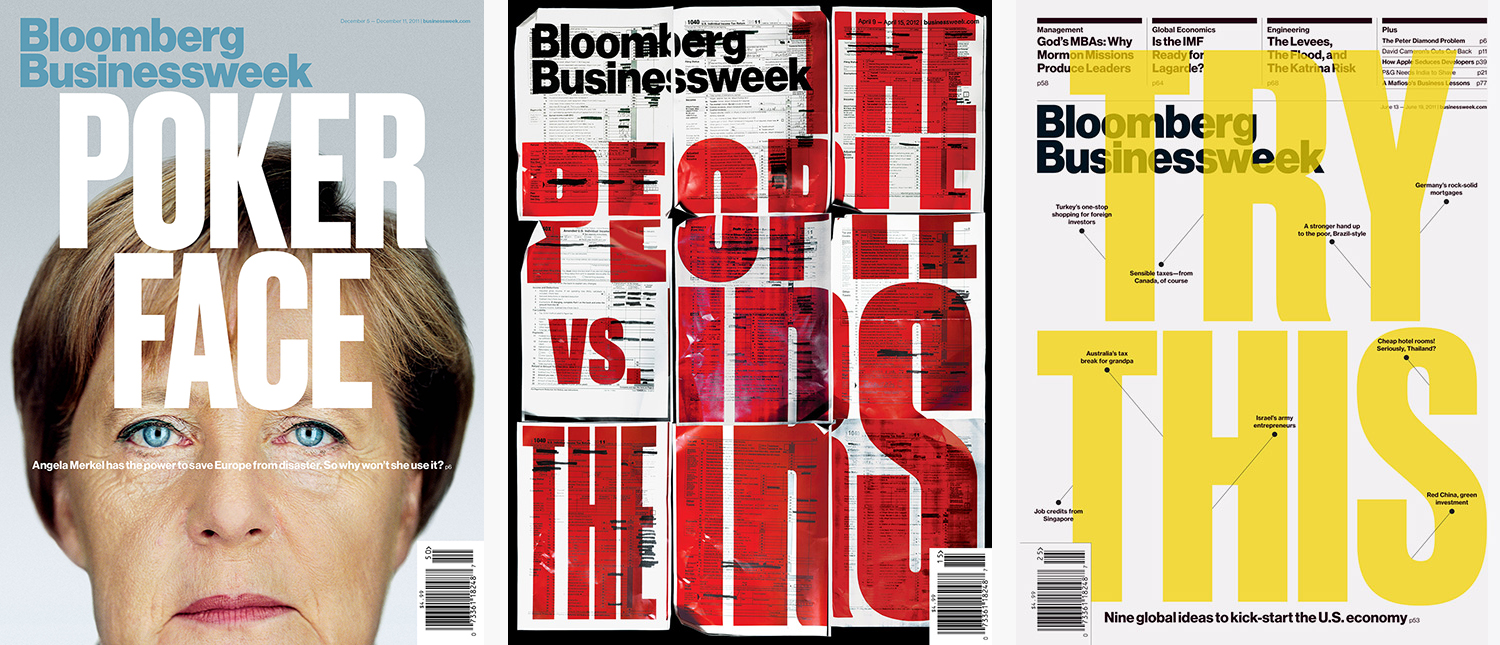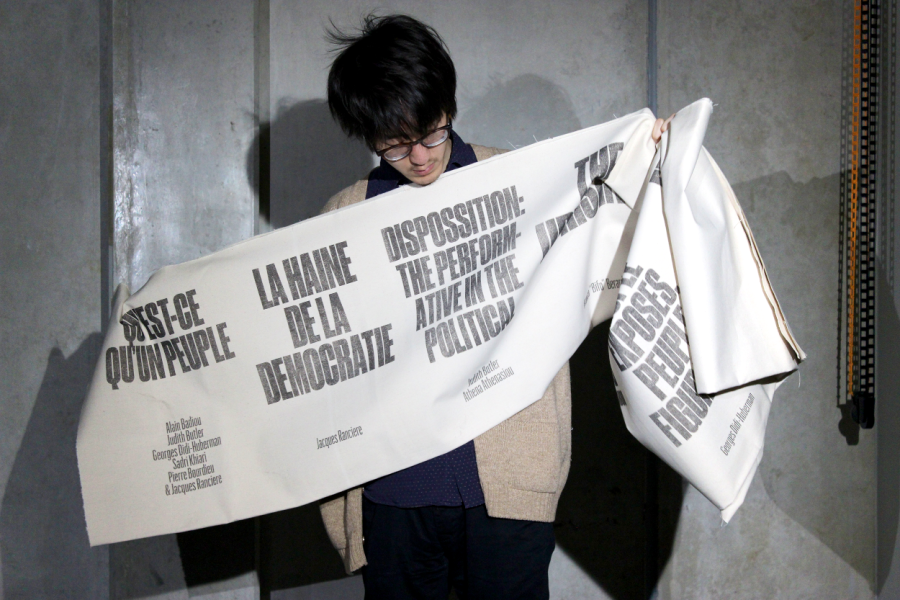
Druk
Designed by Berton Hasebe, Druk is a study in extremes, featuring the narrowest, widest, and heaviest typefaces in the Commercial Type library to date. Starting from Medium and going up to Super, Druk is uncompromisingly bold. Druk was designed without a normal width, nor lighter than medium weights, as Hasebe wanted to avoid shifting the focus of the typeface away from the most emphatic styles to accommodate more general-purpose usage.
Druk has its roots in type from the past: the sans serifs created in the 19th century onwards and popularised in the 20th century for powerful display typography. These were mainly used for posters and editorial design, and were often the loudest voices in the typographic spectrum. However, Druk is designed with a particular kind of graphic design in mind, rather than reverently preserving these old forms. Hasebe created Druk for Richard Turley at Bloomberg Businessweek. After using a staple diet of Neue Haas Grotesk and Publico for two years, they wanted to add a typeface that would look both exciting and distinctive in and of itself, and wouldn’t force the designers to work as hard to make every headline – all of which had been in Neue Haas Grotesk up to this point – visually engaging. The result was Druk, which went on to play a major role in many of their iconic covers.
Druk’s so-called ‘normal’ width would probably be called a condensed in any other typeface. Its flat sides allow it to be spaced tightly and very consistently, while subtle oddities in its proportions keep it from looking monotonous. The Super weight manages to be very loud without becoming a charicature of itself. Instead, it projects solidness. This width of Druk was designed with poster-style typography in mind, where a short headline needs to have a lot of impact: book covers, opening spreads for magazine features, broadcast design, and of course posters.
01 druk fam 1000 xxx The 'normal' width of the Druk family is comprised of four weights, with italics.
Xx bw covers 1000 xxx Druk appeared on many of Bloomberg Businessweek’s iconic covers.
Img 2801 s k01 900x600 1000 xxx Atelier Carvalho-Bernau used Druk in their concept sketches for a book series on politics and protest. The titles were screenprinted on banners, held here by their former intern Ohri. Photograph by Masaki Komoto
Of the families in the Druk collection, Druk Condensed is the most explicit homage to Willy Fleckhaus, legendary German art director of the 1960s style magazine Twen. Its flat sides make letters and words snap together in a clean and satisfying way. Druk Condensed features three widths in the same Super weight. The Condensed and X Condensed are very graphic, and the XX Condensed becomes almost abstract. Druk Condensed takes the idea of poster-style typography to almost ludicrous extremes.
02 drukcondrom 1000 xxx Druk Condensed family
11 bw spread showbiz 1000 xxx A spread from the 2011 Year in Review issue of Bloomberg Businessweek.
Druk Wide is first and foremost an homage to the way Dutch graphic designers of the early- to mid-20th century commonly used wide, bold sans serifs (Annonce Grotesk and others) to add a strong typographic hierarchy to their work. A prime example of this usage is Willem Sandberg’s set of catalogs for the Stedelijk Museum in Amsterdam. Used on its own, Druk Wide makes words and sentences that can be arranged in stacked, brick-like arrangements for very satisfying page constructions. When mixed with Druk and Druk Condensed, display typography takes on a surprising, staccato texture, reminiscent of some of the headline treatments in Spy magazine under Alexander Isely in the early 1990s, which remain surprising and fresh today.
04 drukwide fam 1000 xxx Druk Wide family
14 etc spread fashion 1000 xxx A spread from the ETC section of Bloomberg Businessweek.
Druk's three widths can be mixed together for bold and expressive typographic treatments. Each style has a matching italic, all of which are at the same angle, so they can be mixed freely regardless of width.
17 druk italicmix 1000 xxx Druk's italics are all at the same angle, regardless of width.